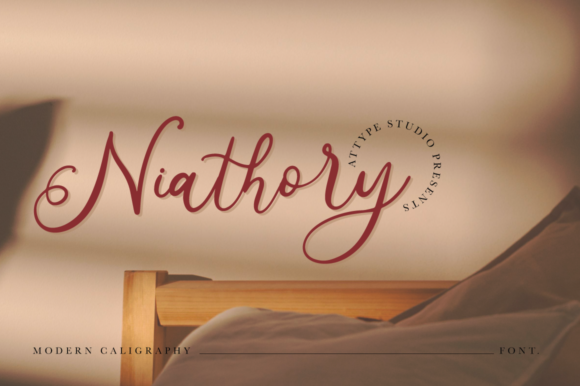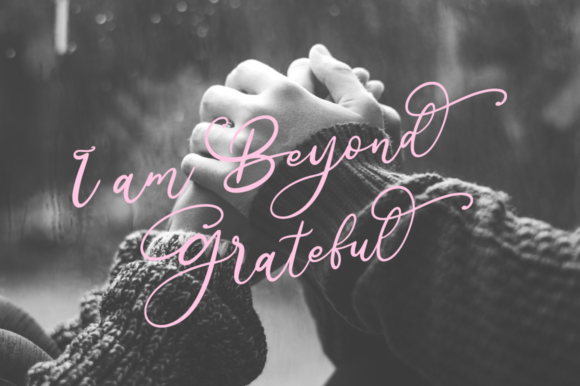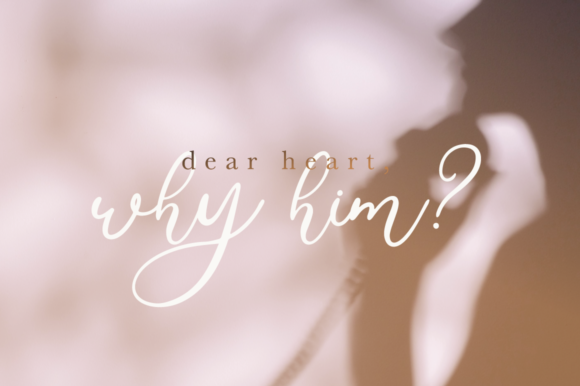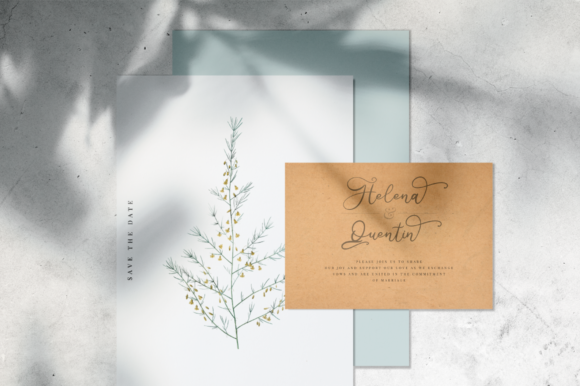
About Niathory Font
Niathory is an equally sophisticated and chic handwritten font that’s great for delivering any message with confidence, authenticity and charm. It will elevate a wide range of crafting ideas, from cards, to branding, labels and much more.